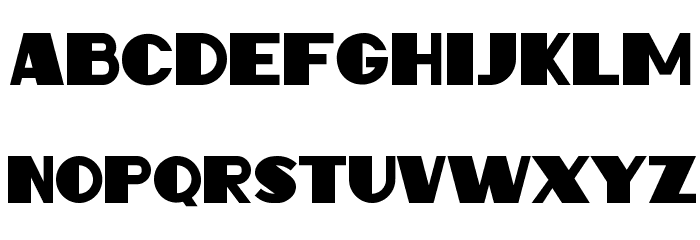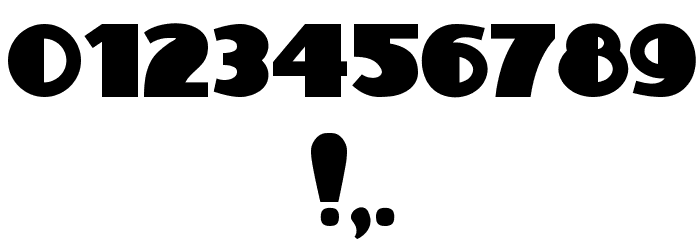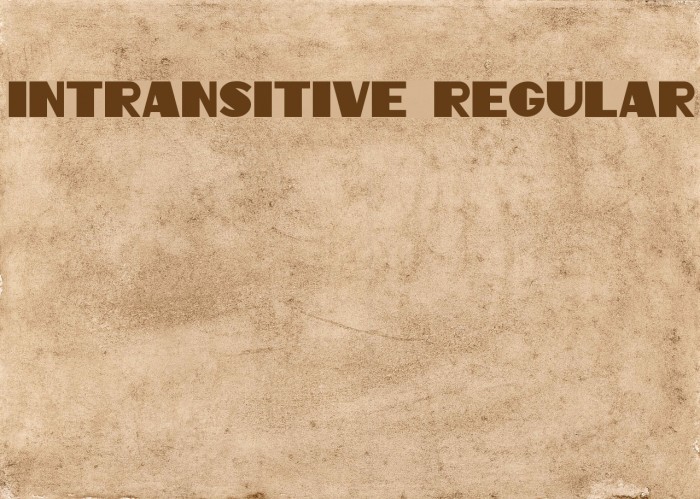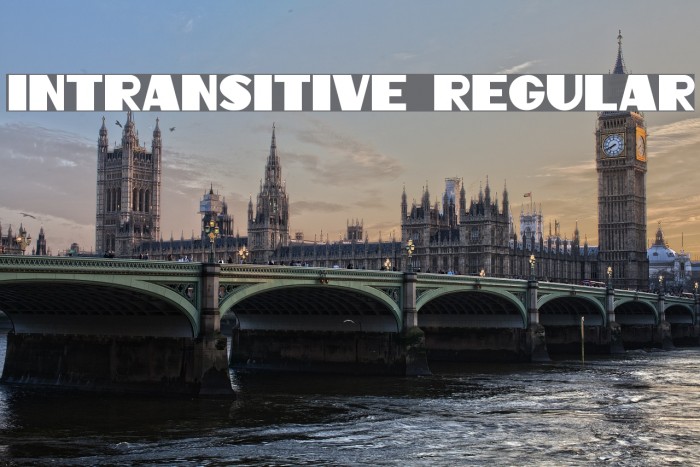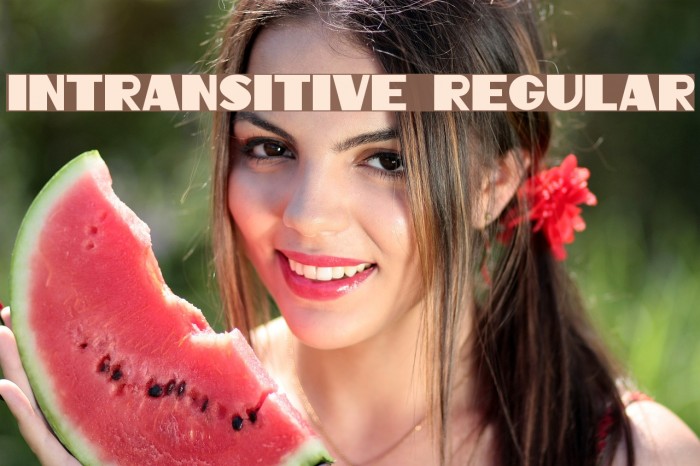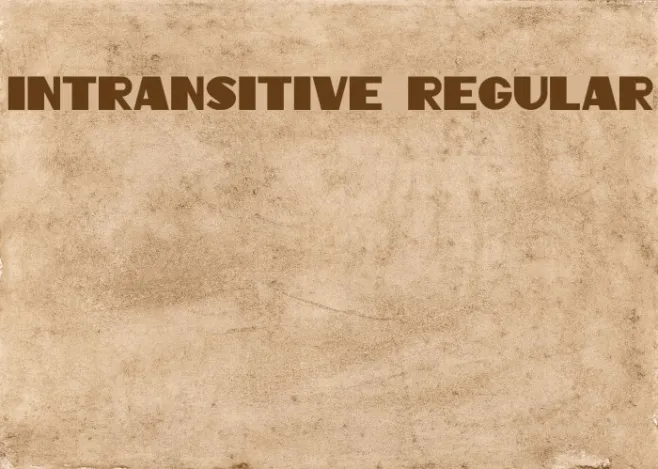
Intransitive Regular Font
This font features bold, geometric letterforms with a strong presence. The characters are constructed with thick strokes and minimal contrast, giving them a solid and impactful appearance. The uppercase letters are particularly striking, with a uniform height and width that create a cohesive look. The lowercase letters maintain the same boldness, ensuring readability and consistency across different text sizes. The numerals are equally robust, designed to stand out in any context. Special characters like the exclamation mark and ampersand are crafted with the same attention to detail, making them ideal for attention-grabbing headlines or logos.
A bold, geometric font with thick strokes and minimal contrast.
- Proposed Projects: Ideal for branding, advertising, headlines, and poster design.